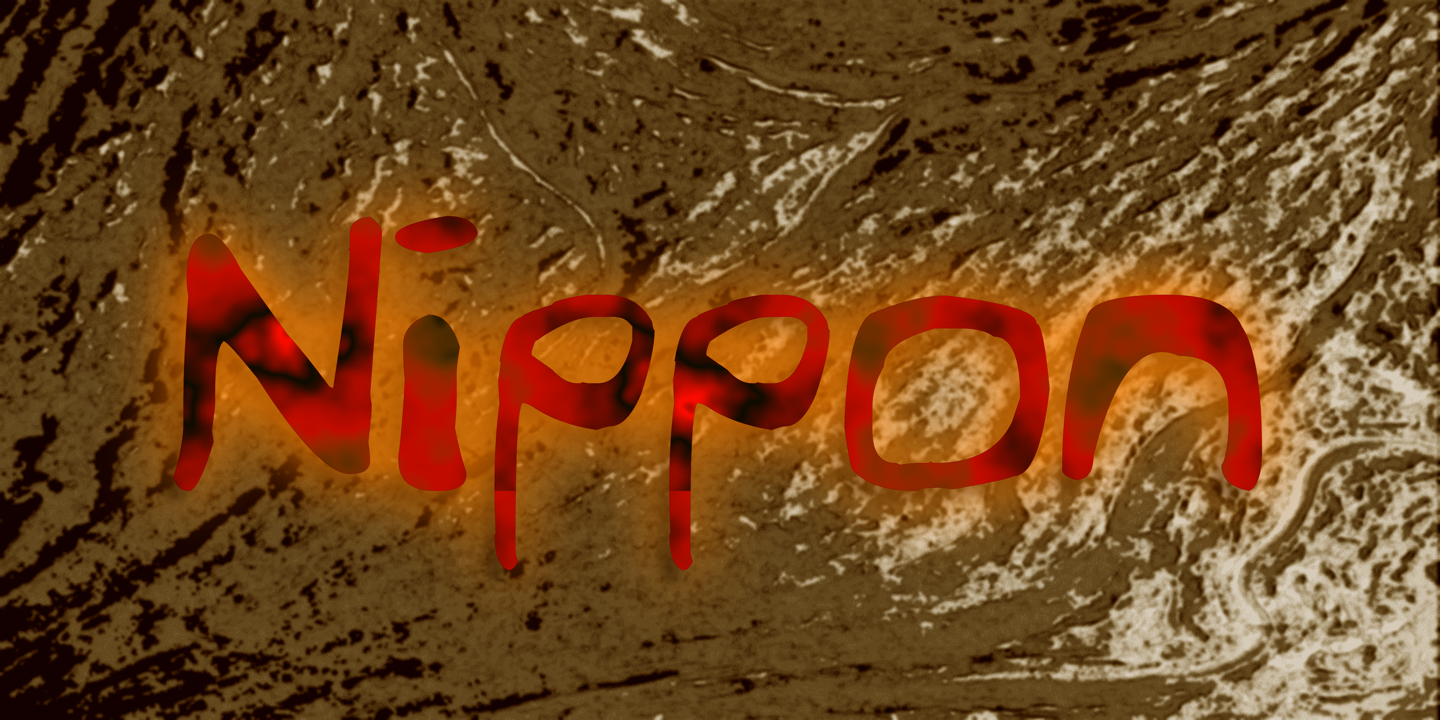
The Nippon Font Free Download is a striking and elegant choice for projects that aim to evoke the rich traditions and aesthetic simplicity of Japan. Its clean lines and unique, Asian-inspired letterforms make it perfect for branding for Japanese restaurants, travel agencies, or cultural events. This font is especially effective for designs that need to convey a sense of harmony, balance, and minimalism, such as product packaging for tea or sake, or titles for martial arts studios. The Nippon Font adds a layer of cultural depth and sophisticated artistry to any design, ensuring your message is delivered with both beauty and respect.
What makes this font so exciting is its exceptional ability to blend traditional artistic influence with modern readability. The Nippon Font is carefully designed to be legible to a Western audience while retaining the stylistic essence of Japanese script. The characters are balanced and well-proportioned, creating a harmonious look that is pleasing to the eye. This makes it an ideal workhorse font for both headlines and short phrases, where its unique personality can truly shine. It's a typeface that works hard to honor its inspiration while being a practical and versatile tool for contemporary design.
The Nippon Font family often includes various weights and styles to give you more creative flexibility. While its main weight is perfect for headlines, the family might also include a regular version for subheadings or a more stylized variant for added emphasis. This range of options allows you to build a cohesive typographic system that is consistent across all your materials. The Nippon Font Free Download is an excellent opportunity to explore these different styles and see how they can work together to create a powerful and unified brand identity.
By choosing the Nippon Font Free Download, you’re opting for a typeface that works hard to not only convey information but also to build an entire atmosphere. It’s a font that ensures your projects are not just seen, but experienced, leaving a lasting impression on your audience.